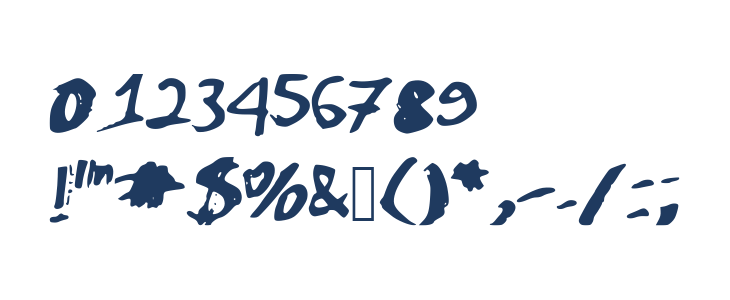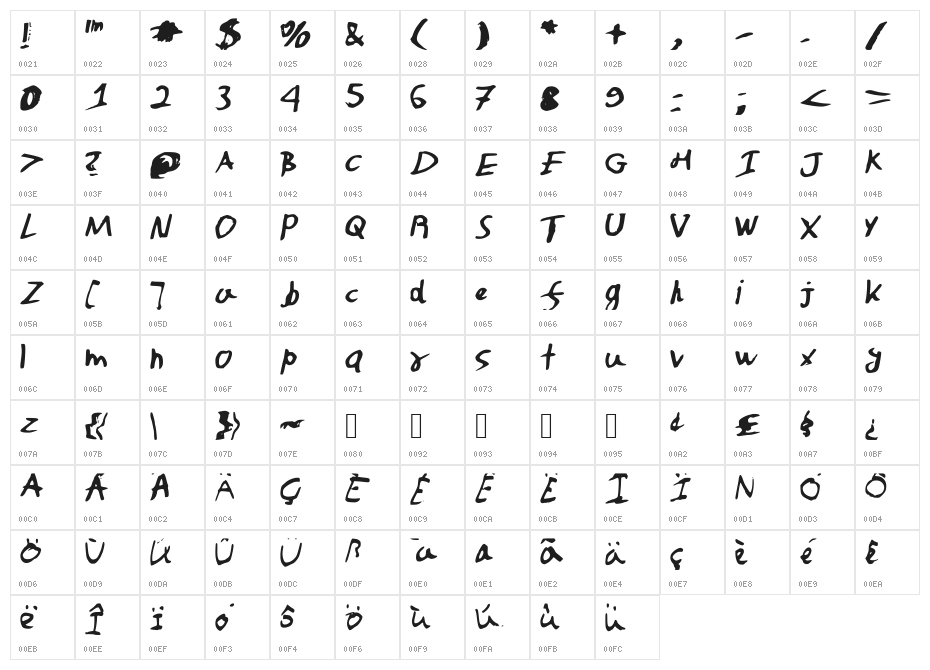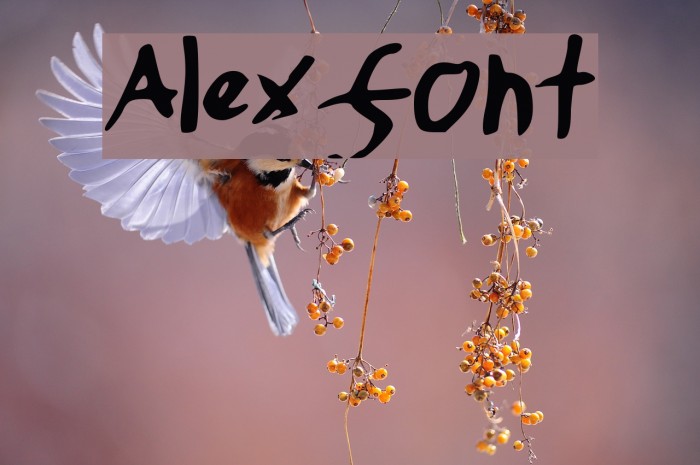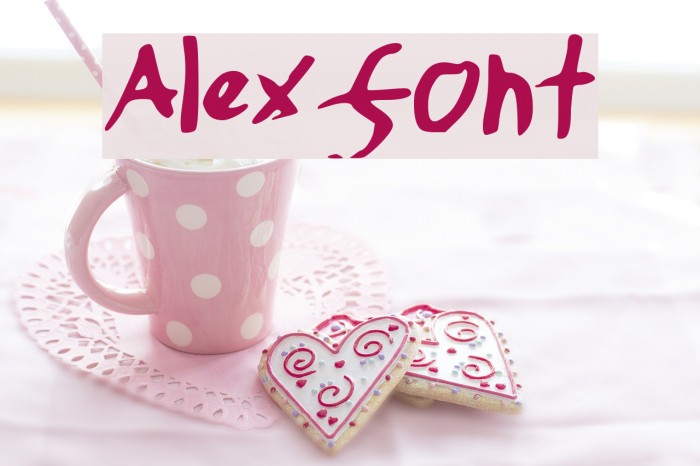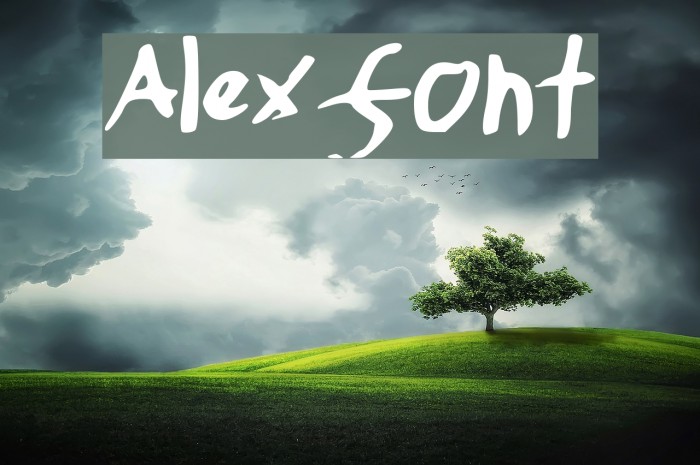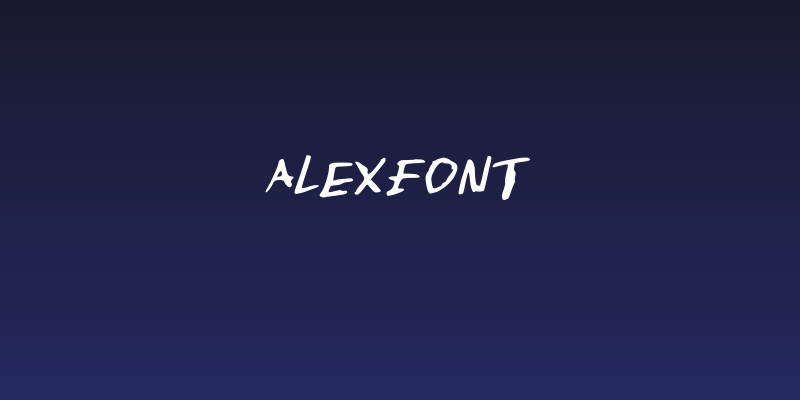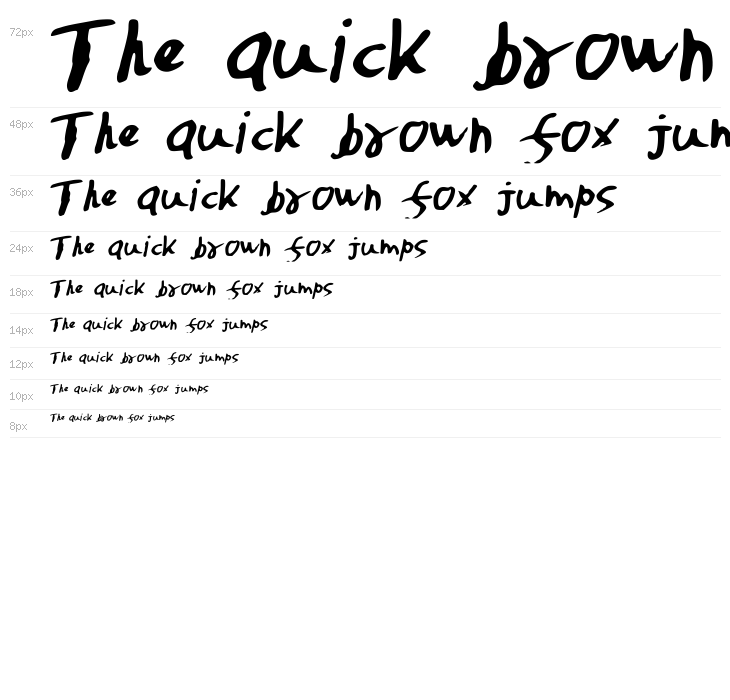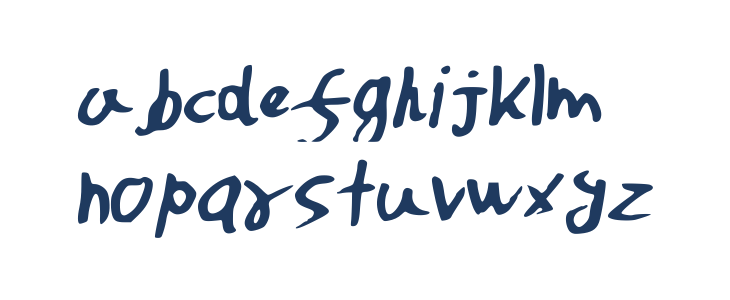
Alexfont Font
Alexfont Description
This font features a dynamic and expressive style, characterized by its bold, handwritten appearance. The letters are slightly slanted, giving a sense of movement and energy. The strokes are thick and uneven, adding a raw and organic feel to the text. The uppercase and lowercase letters maintain a consistent style, with some characters exhibiting unique flourishes that enhance the overall aesthetic. The numbers and special characters are equally bold and maintain the same energetic style, making them stand out. This font is ideal for projects that require a personal touch or a sense of spontaneity.
| Use Case | Logos, Headlines, Posters |
| Proposed Projects | Perfect for creative projects such as posters, album covers, and artistic branding that require a bold and personal touch. |